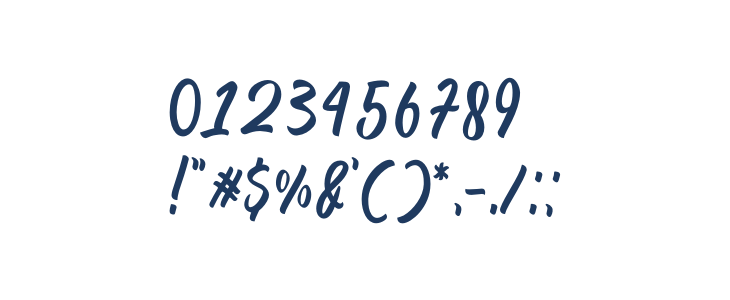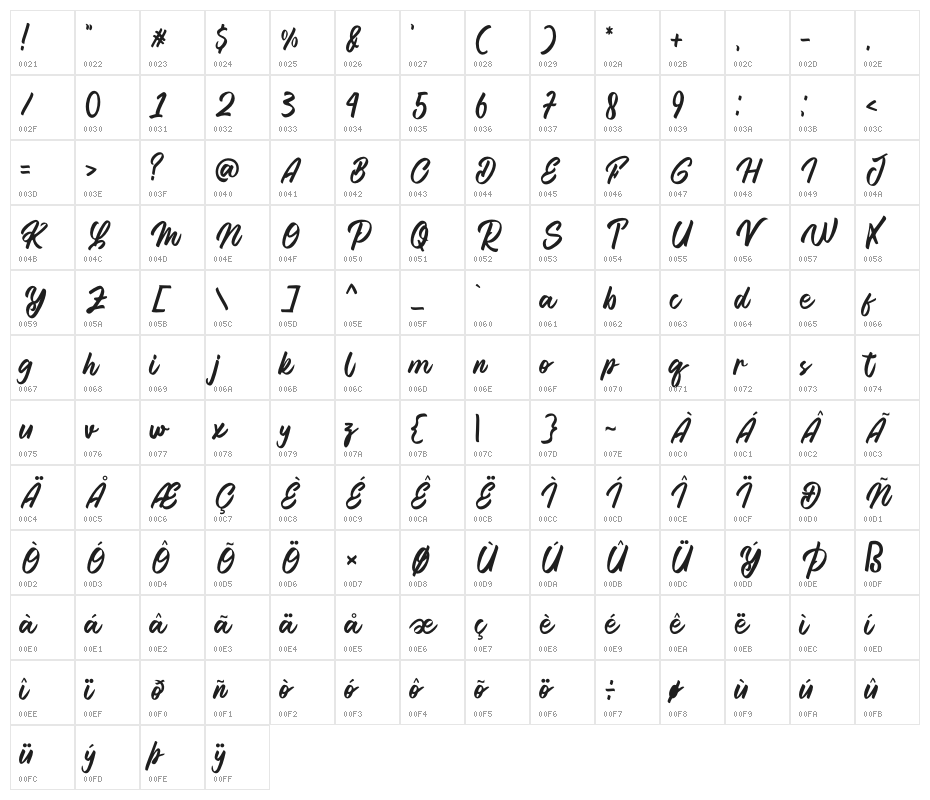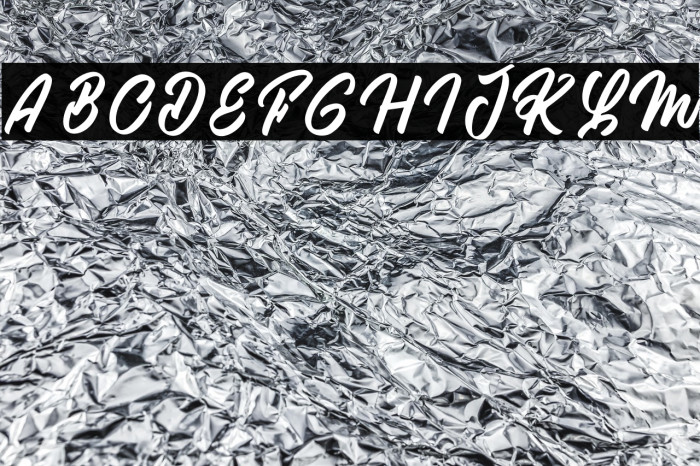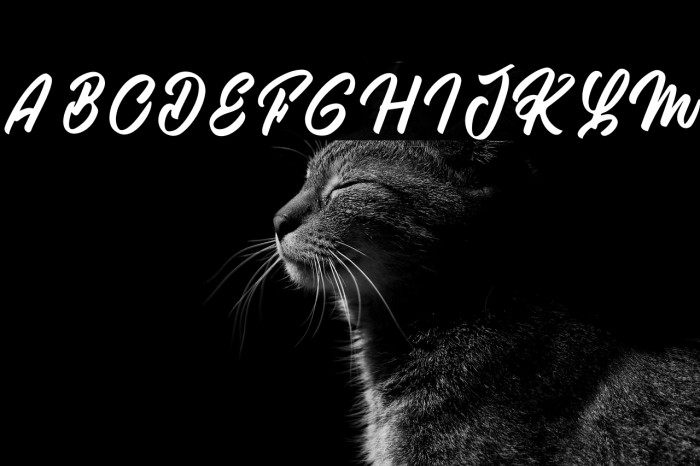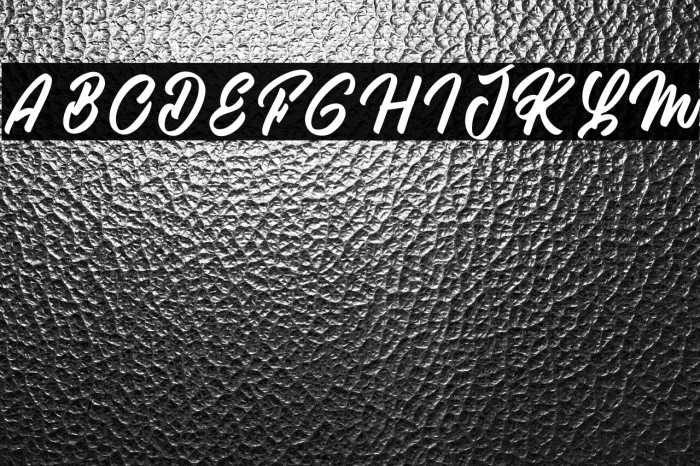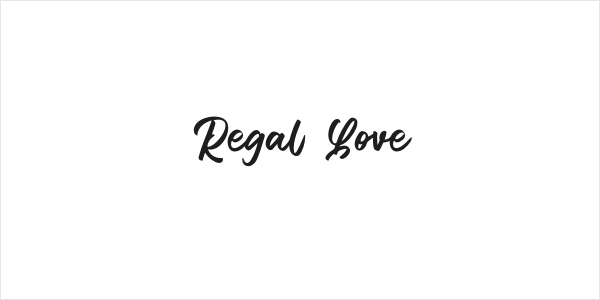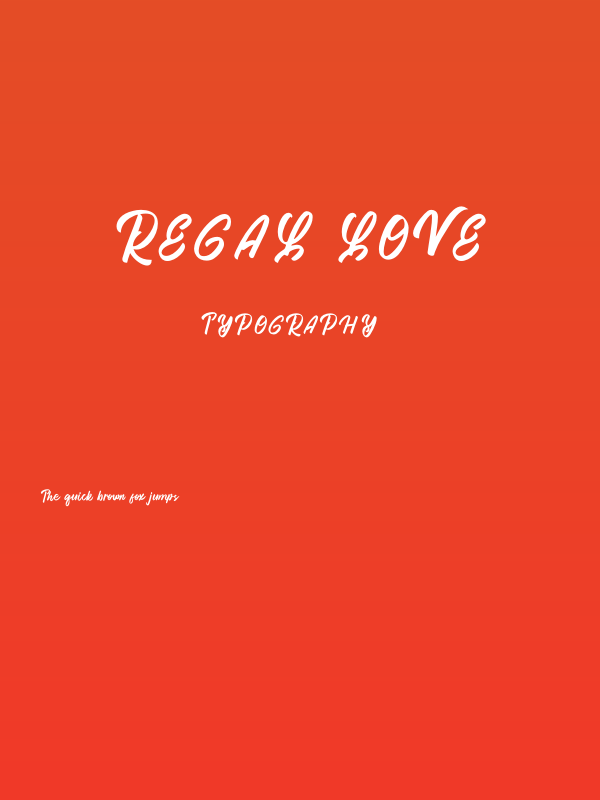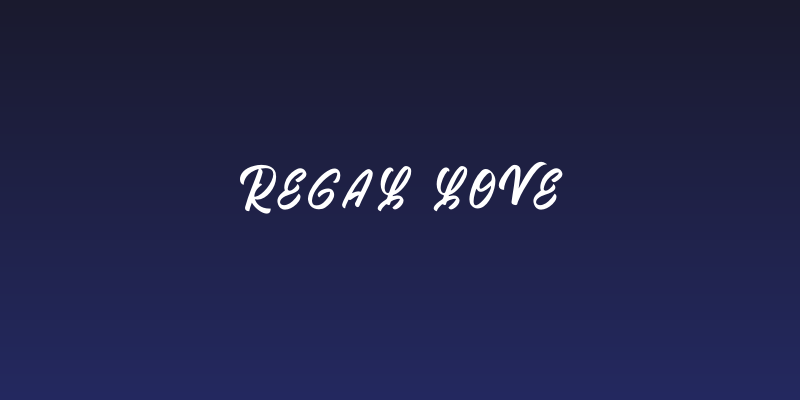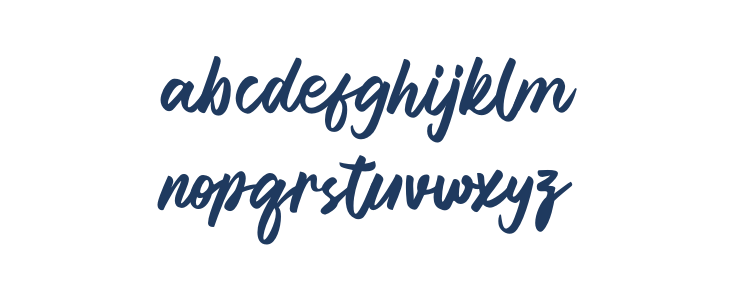
Regal Love Font
Regal Love Description
This font exudes a bold and dynamic script style, characterized by its flowing, cursive letterforms that convey a sense of elegance and movement. The uppercase letters are slightly more upright, while the lowercase letters exhibit a more pronounced slant, enhancing the font's fluidity. The strokes are thick and consistent, providing a strong visual impact. The numbers and special characters maintain the same lively style, ensuring a cohesive look across all characters. This font's energetic and expressive nature makes it ideal for projects that require a touch of sophistication and flair.
| Overall Style | Elegant, Expressive |
| Proposed Projects | Ideal for wedding invitations, branding, logos, and elegant packaging designs. |